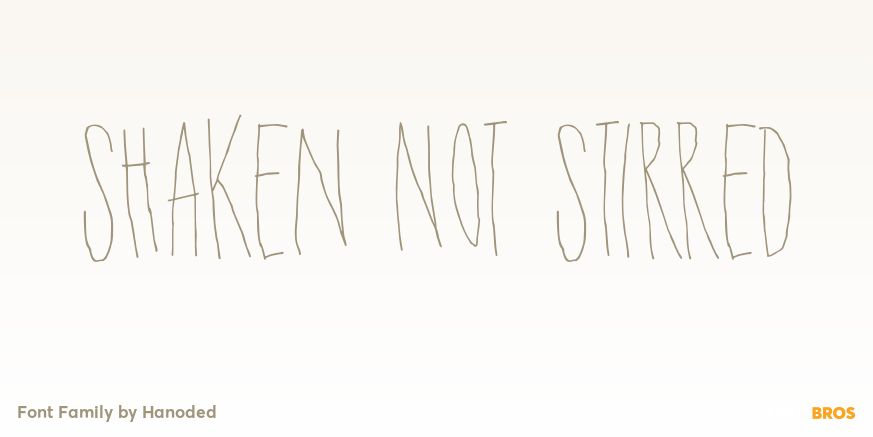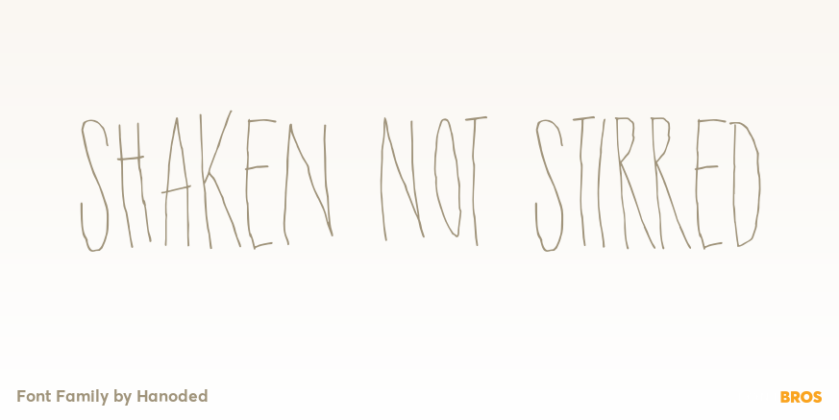
Shaken Not Stirred
About Shaken Not Stirred
Shaken, Not Stirred. A famous line from just about every James Bond movie (yes, we\’re talking Martini-time). The font is also quite shaken (and not stirred). It looks like someone scrawled something onto paper, or etched the letters in metal. Shaken,…